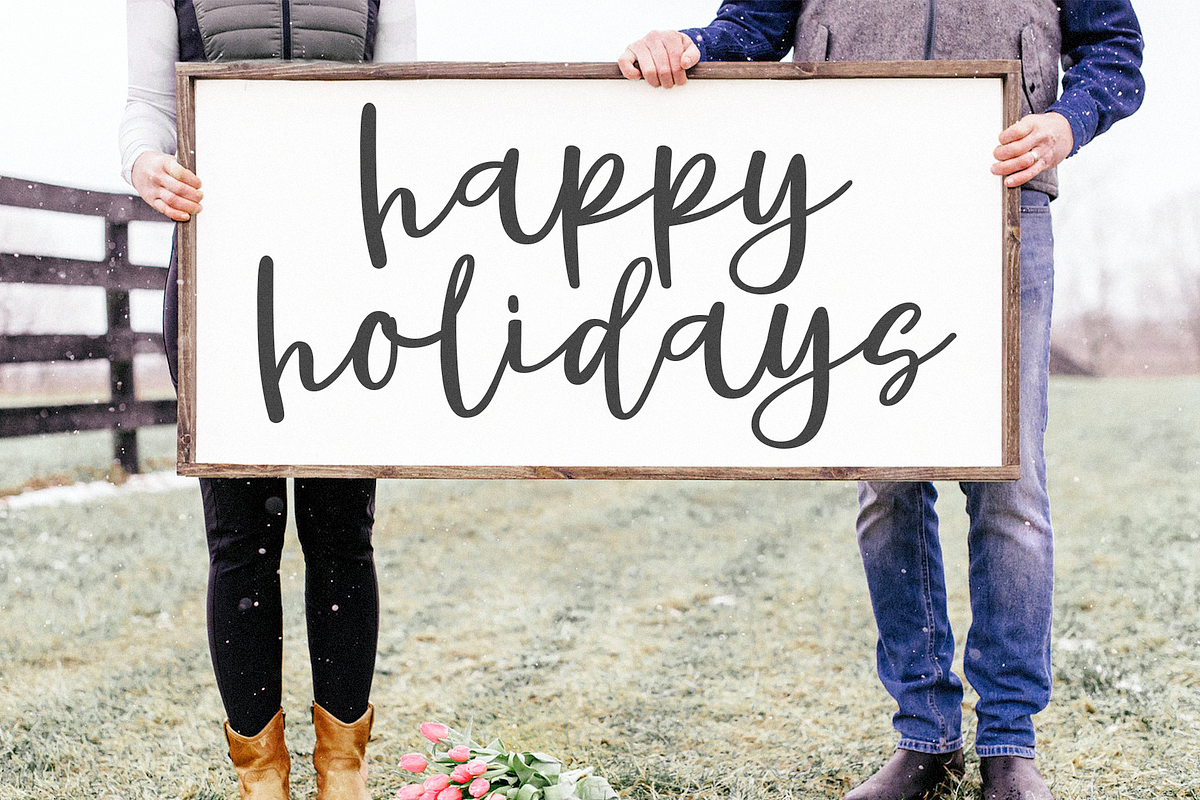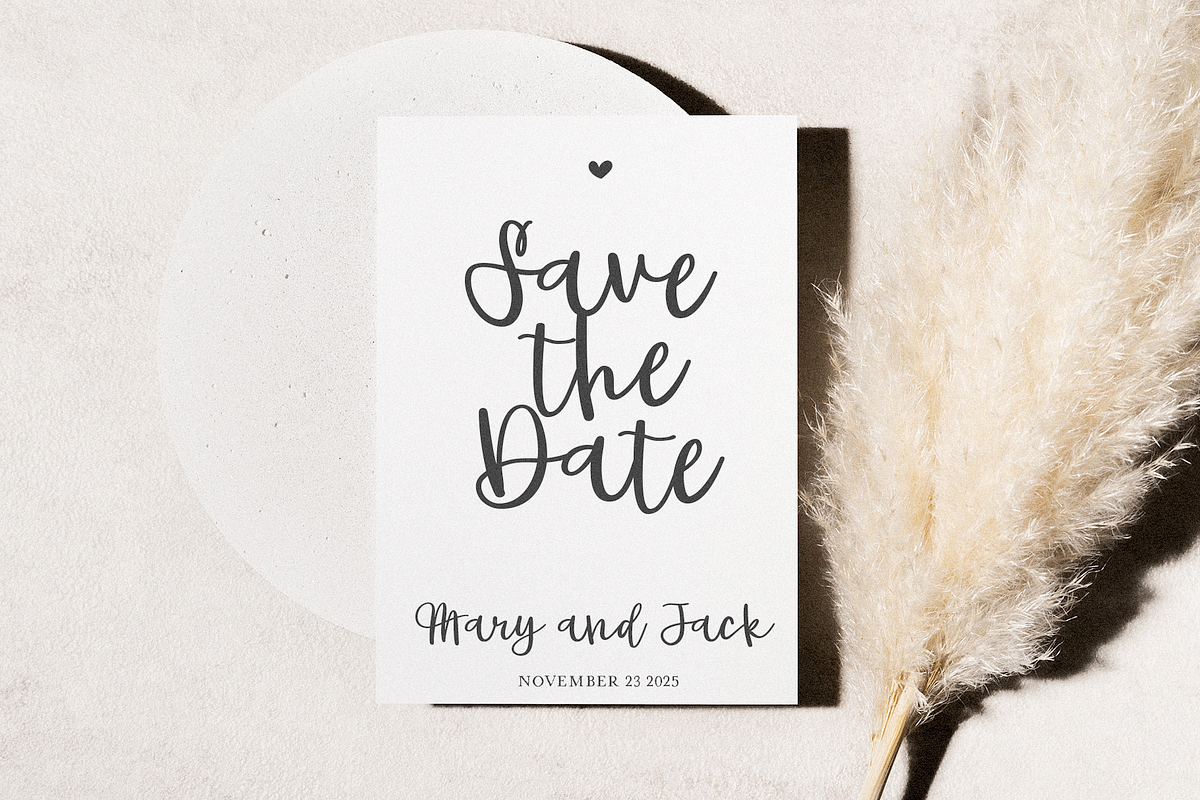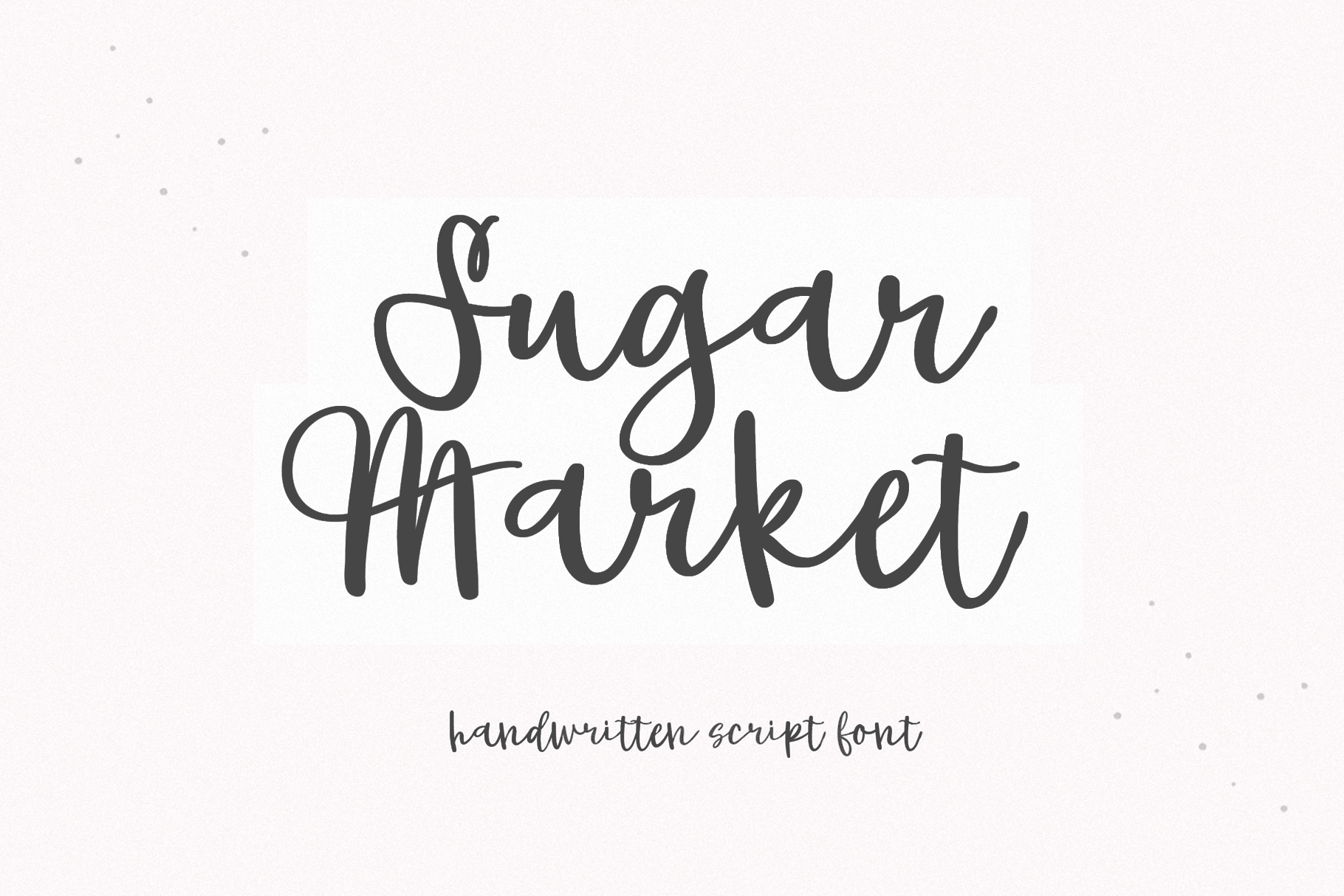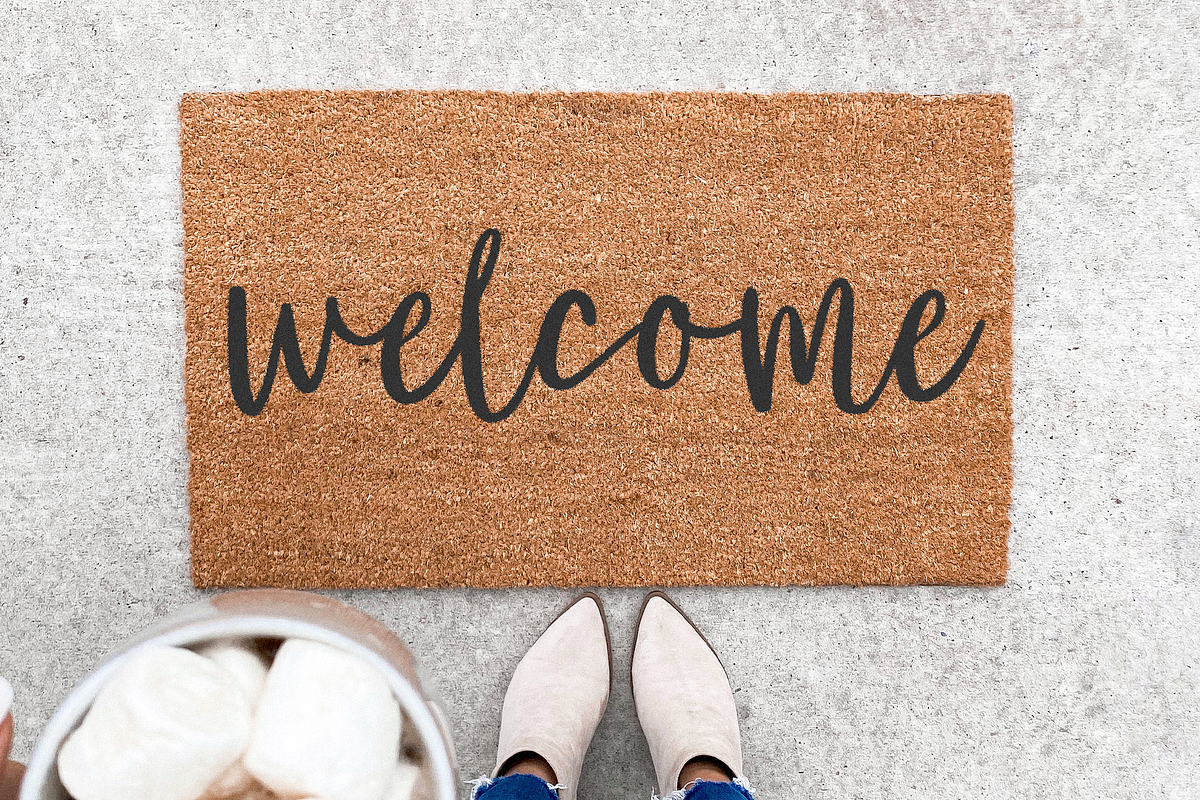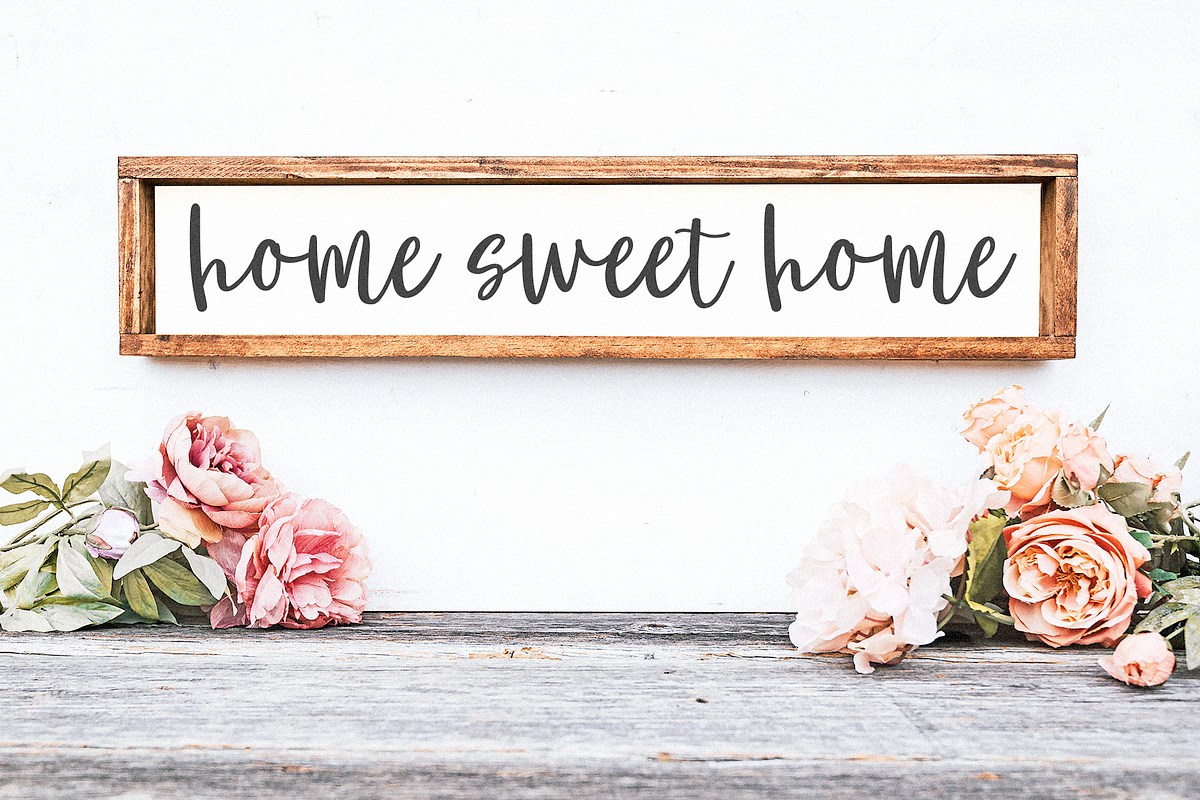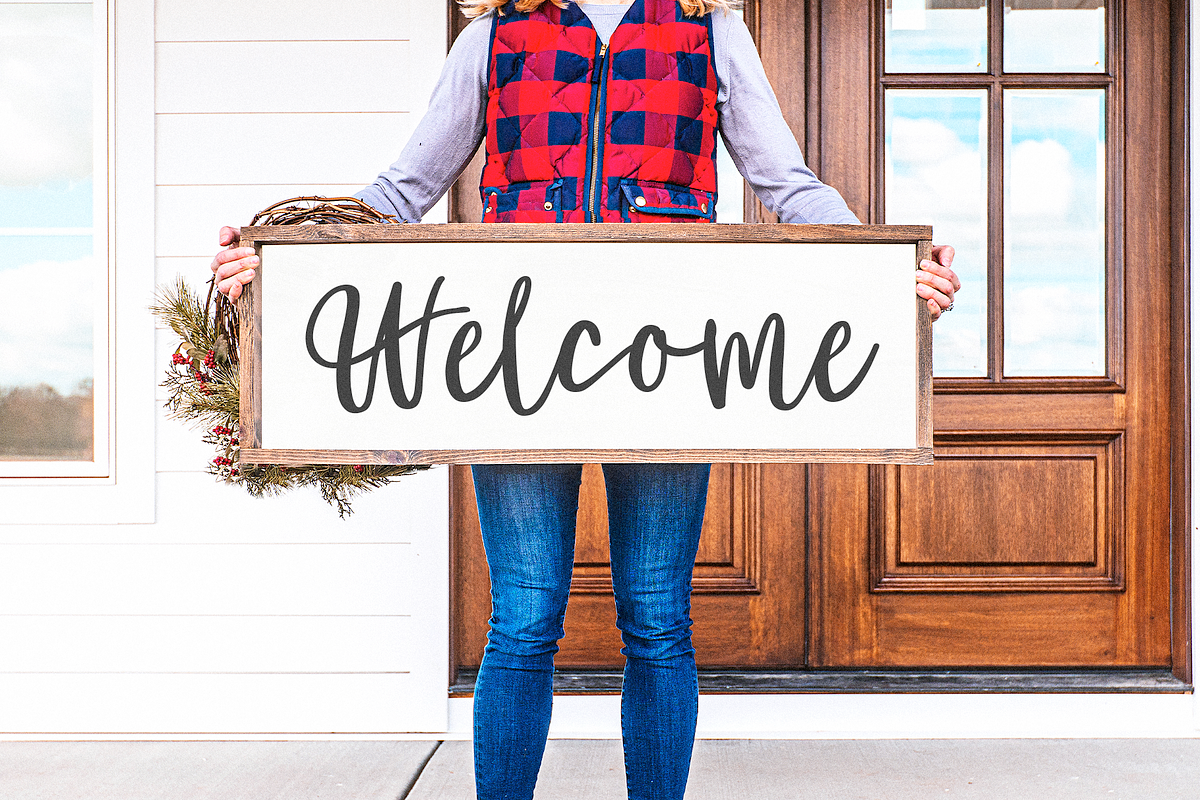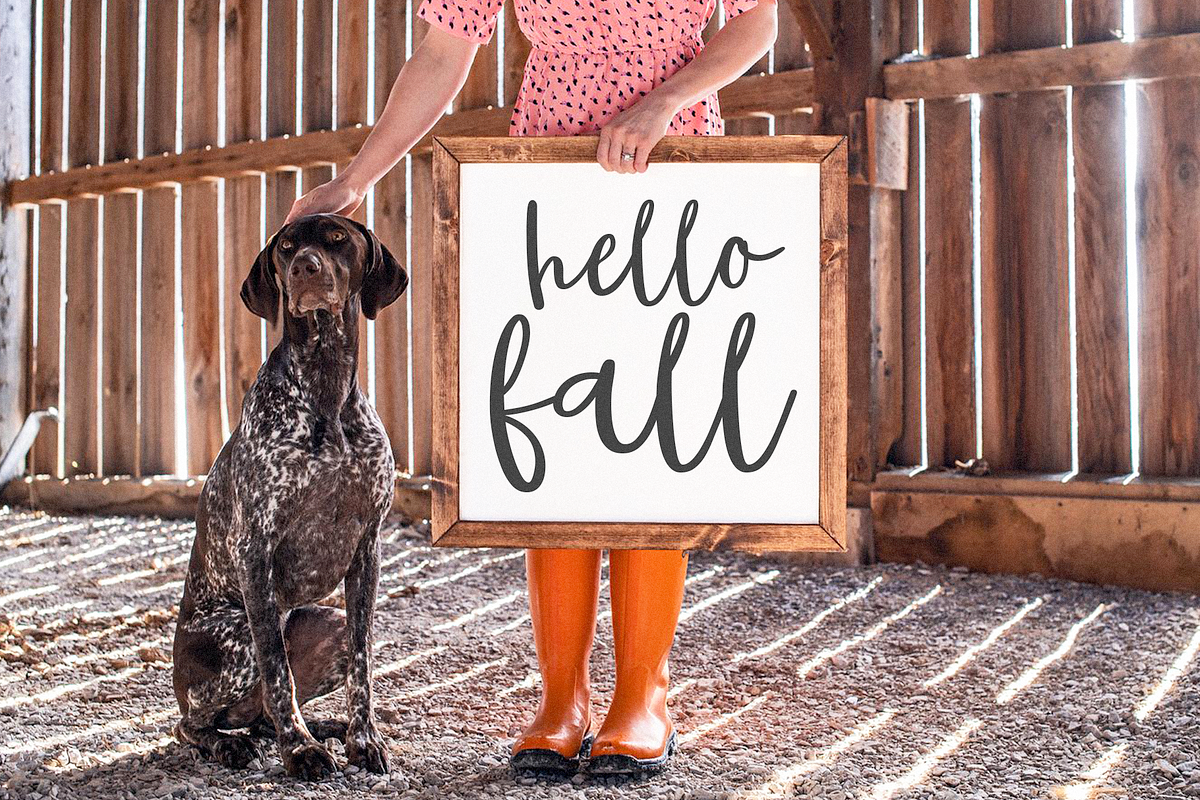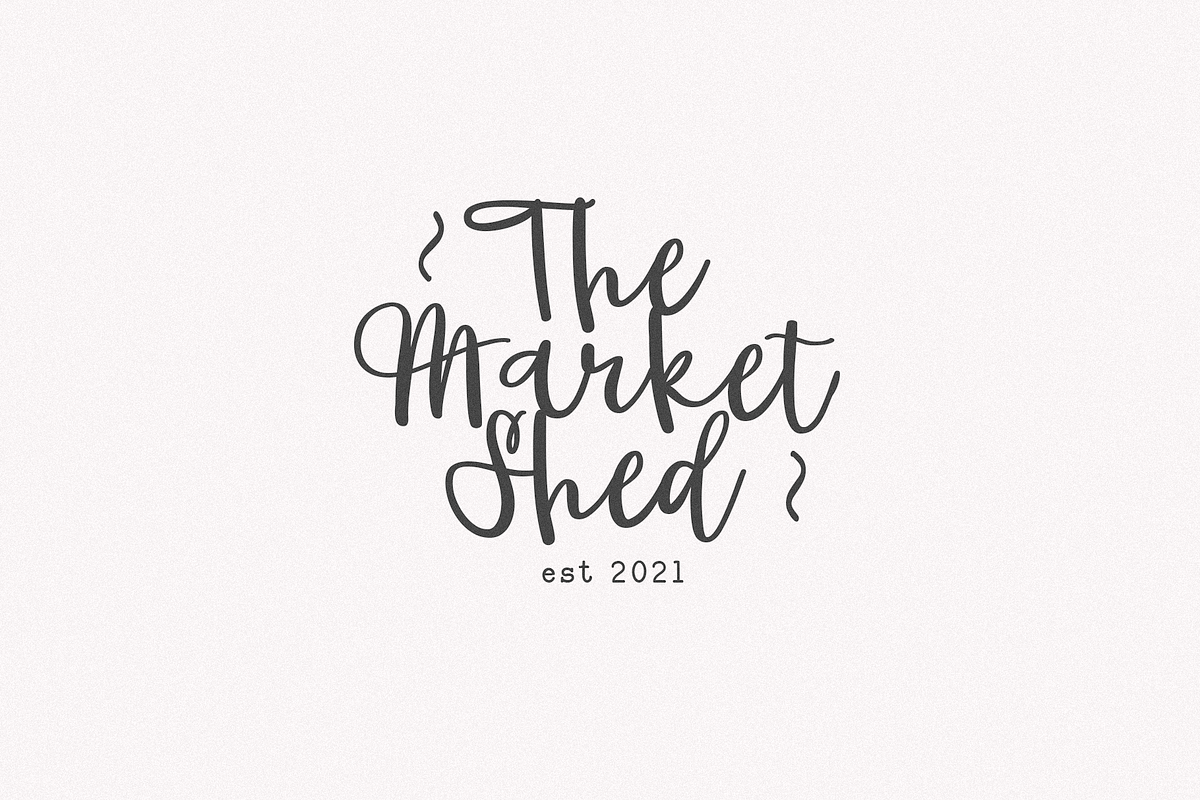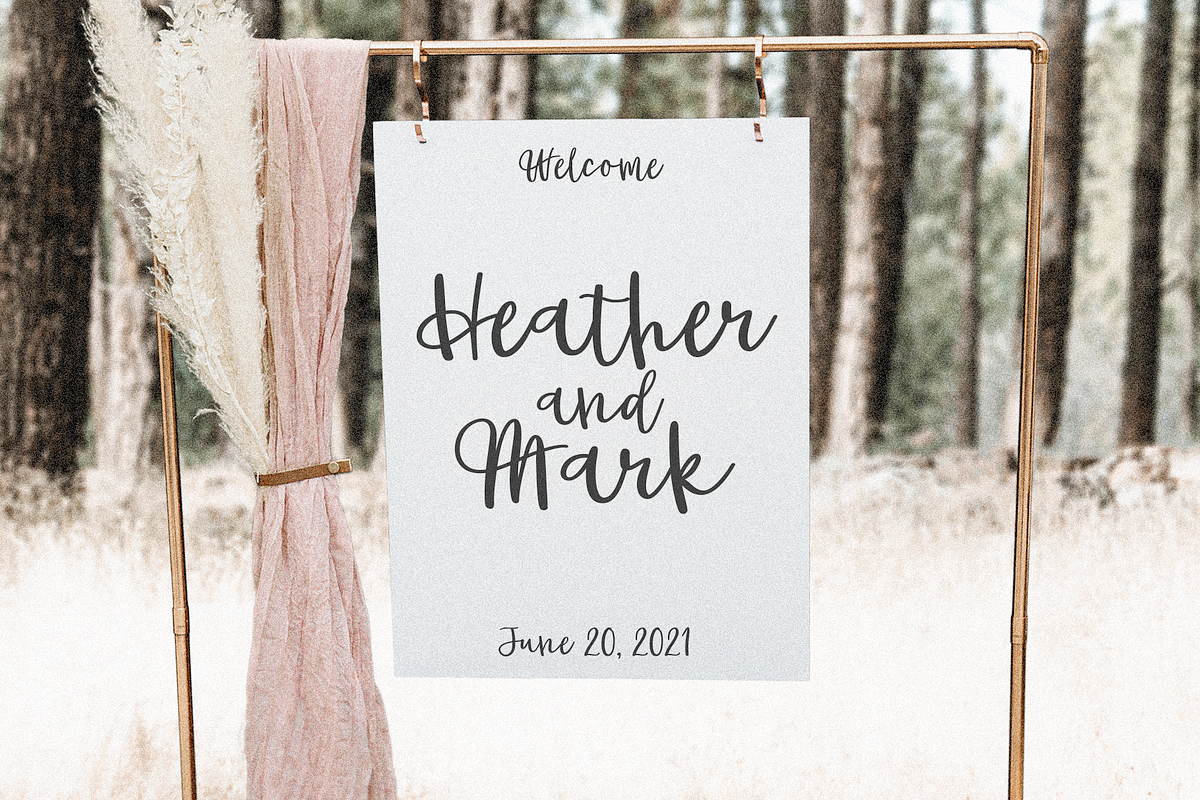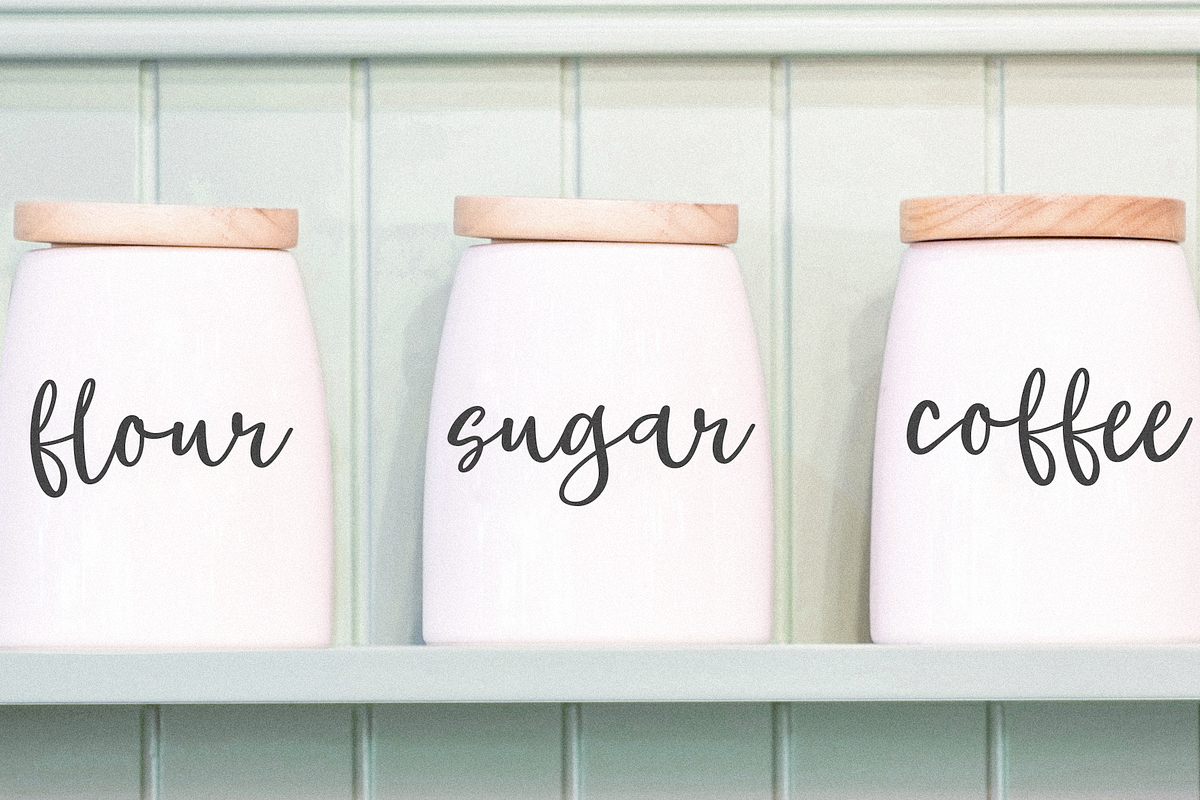
Sugar Market | Farmhouse Script Font
Sugar Market is a handwritten script font.
This font is perfect for your craft projects, svg files, farmhouse designs, wedding decor, logos, quotes and more!